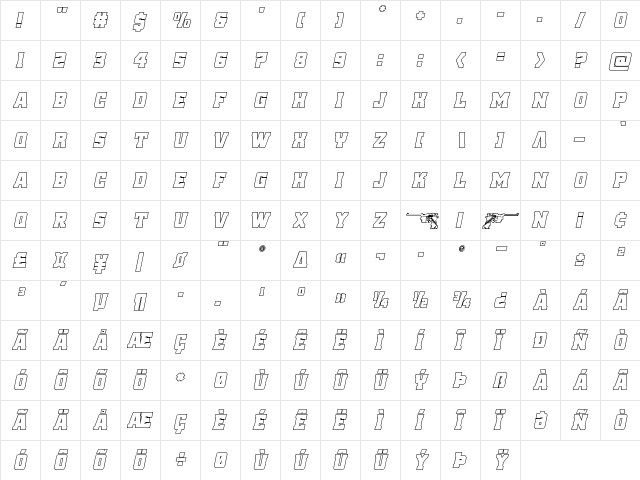
Red Delicious Outline Italic Outline Italic
Design Context for Red Delicious Outline Italic Typeface
Red Delicious Outline Italic brings ornamental detail and strong personality to headlines and identities, where visual impact matters more than quiet functionality. The dynamic lean of this cut emphasises speed and emphasis in any layout.
Font Pairing: Pair with a clean neutral sans-serif for body copy to let Red Delicious Outline Italic's character lead without overwhelming the composition.
Pro Tip: Treat Red Delicious Outline Italic as the centrepiece of your typographic hierarchy. One strong heading set in a decorative face can carry an entire layout.